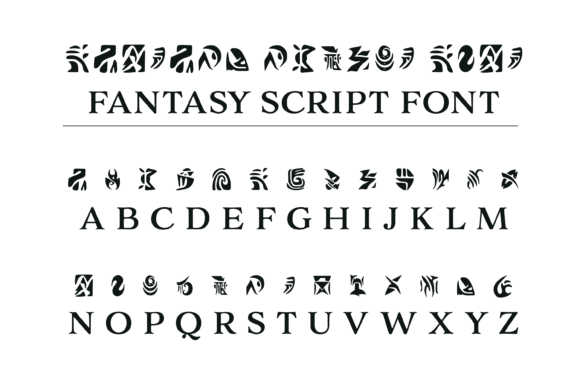
Fantasy Script 17 Font: The Perfect Addition to Your Fantasy World
Are you a designer, writer, or crafter looking to add a touch of magic to your next project? Look no further than the Fantasy Script 17 Font. This enchanting font is perfect for anyone working on a Dungeons and Dragons campaign, fantasy LARP adventure, novel, or any other creative endeavor that requires a dash of whimsy and wonder.
A Font Fit for Fantasy
The Fantasy Script 17 Font is a beautifully crafted script font that is sure to transport your readers to a world of fantasy and adventure. With its intricate lettering and elegant flourishes, this font is perfect for creating eye-catching titles, captions, and text that will make your project stand out from the crowd.
Whether you’re a seasoned designer or a beginner crafter, this font is easy to use and can be incorporated into a variety of projects, from digital documents to print materials. The Fantasy Script 17 Font includes the standard English alphabet and basic punctuation, making it a versatile choice for any project.
Perfect for Dungeons and Dragons and Fantasy LARP Adventures
If you’re a fan of Dungeons and Dragons or fantasy LARP adventures, you know how important it is to create an immersive experience for your players. The Fantasy Script 17 Font is the perfect tool to help you do just that. Use it to create:
• Character sheets and profiles that will bring your players’ characters to life
• Maps and brochures that will transport your players to a world of wonder
• Signs and posters that will add a touch of authenticity to your game
A Great Choice for Novelists and Writers
If you’re a novelist or writer working on a fantasy novel, the Fantasy Script 17 Font is a great choice for your book’s title, chapter headings, and even quotations. This font will add a touch of elegance and sophistication to your writing, making it perfect for:
• Book covers and title pages
• Chapter headings and section dividers
• Quotations and dialogue that require a touch of whimsy
Key Features of the Fantasy Script 17 Font
The Fantasy Script 17 Font has a number of key features that make it a great choice for designers and crafters, including:
• Includes the standard English alphabet and basic punctuation
• Beautifully crafted script font with intricate lettering and elegant flourishes
• Perfect for use in digital documents and print materials
• Easy to use and incorporate into a variety of projects
In conclusion, the Fantasy Script 17 Font is a great addition to any fantasy project, and its uses are endless. Whether you’re working on a Dungeons and Dragons campaign, a fantasy LARP adventure, a novel, or any other creative endeavor, this font is sure to bring a touch of wonder and magic to your work.
So, go ahead and let your imagination run wild with the Fantasy Script 17 Font. Create something truly special and unique, and make your project stand out from the crowd. With this font, the possibilities are endless, and the only limit is your imagination.